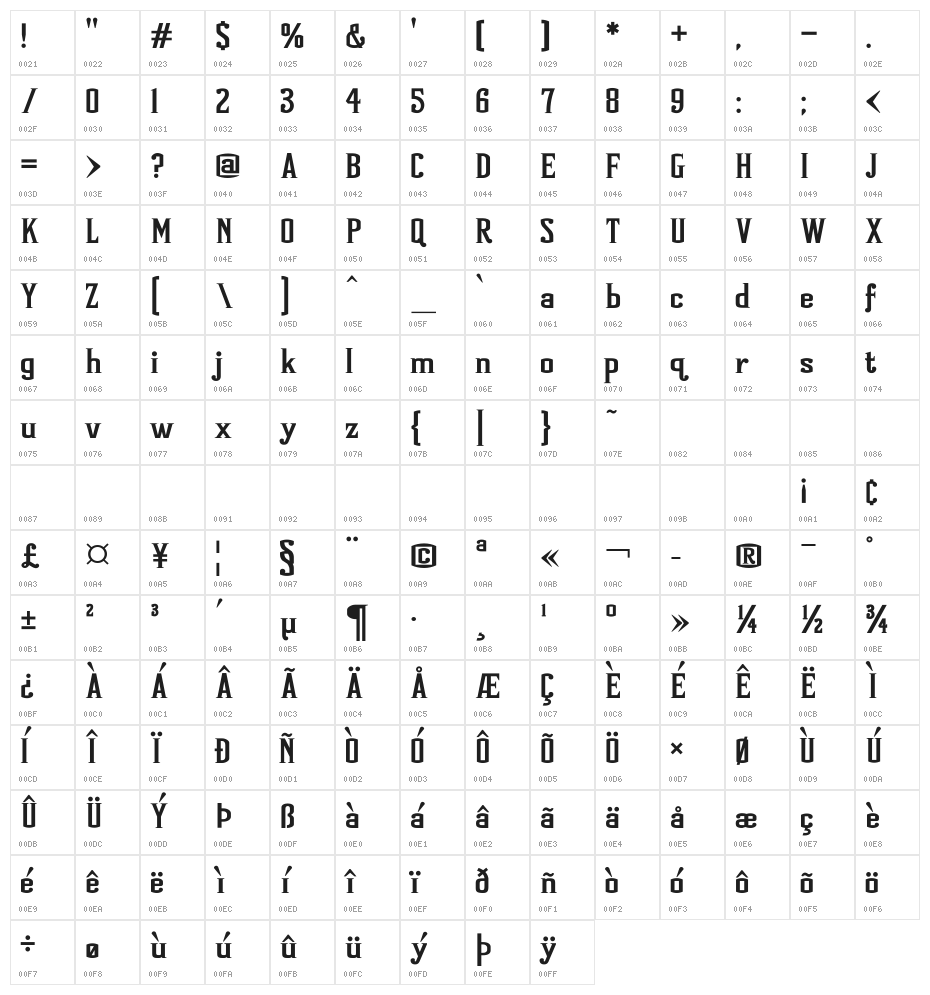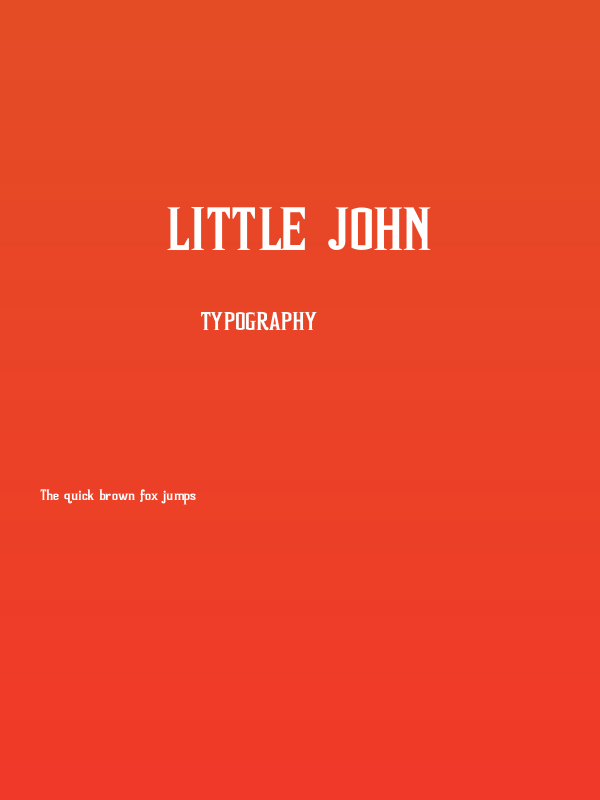
Little John Font
Little John Description
This font features a bold and distinctive style with strong, angular serifs and a robust presence. The uppercase letters are tall and commanding, while the lowercase letters maintain a consistent weight, offering a harmonious balance. The numerals are clear and legible, with a slightly condensed appearance that complements the overall design. Special characters are crafted with attention to detail, ensuring they integrate seamlessly with the alphabetic characters. The font's boldness and unique character make it suitable for impactful designs.